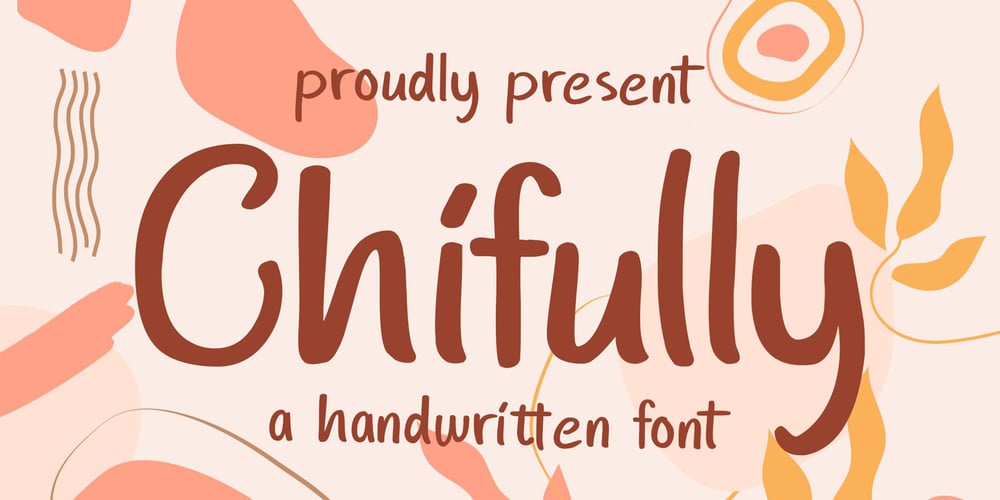
Chifully Font Family was designed by Nur Solikh and published by Astageni. Chifully contains 1 styles and family package options. hi, here is Chifully, a handwritten font.started with writing, and I thought, well it’s good to make a font,Chifully fonts are perfect for design needs with cheerful nuances,very suitable for use in t-shirts, for quotes on mugs, etc,develop your imagination, right?